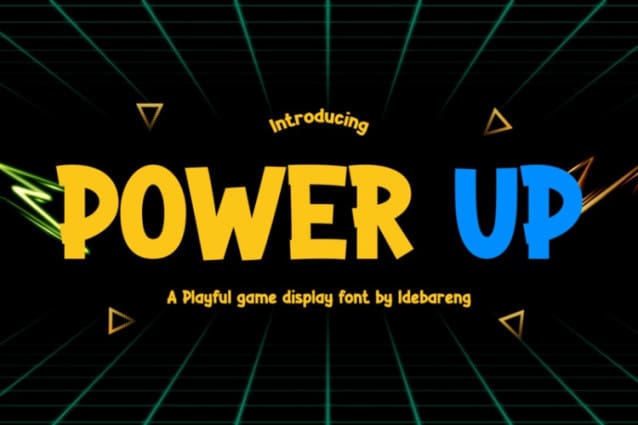
Power Up Font
Power Up Font is a vibrant and energetic typeface designed to add excitement to your creative projects. It’s perfect for game developers, marketers, and content creators who want to craft engaging visuals. With its bold and playful letterforms, Power Up works well for game titles, posters, event banners, and branding materials. Its style exudes energy and enthusiasm, making it a top choice for fun and dynamic designs.
Additionally, its dynamic look captures the spirit of gaming culture. This makes it a great choice for designs targeting gamers or younger audiences. Whether you’re creating eye-catching advertisements, playful social media posts, or themed merchandise, Power Up adds a unique flair to your work. Its seamless readability ensures your message stands out, even in complex or colorful layouts.
Power Up doesn’t just offer style—it provides a way to build emotional connections with your audience. The font’s bold curves and striking shapes evoke excitement, making it perfect for campaigns centered around action, adventure, or creativity. This font is not just for gaming; it’s also a great fit for educational projects or events that require an energetic tone.